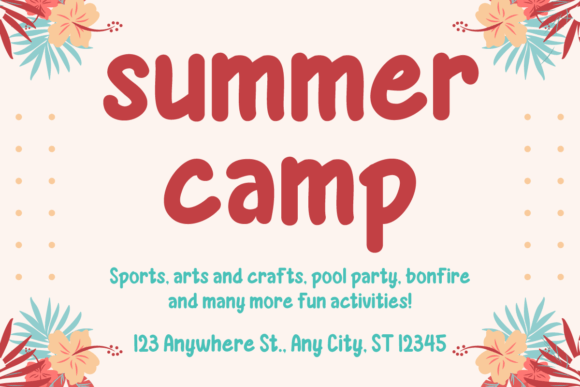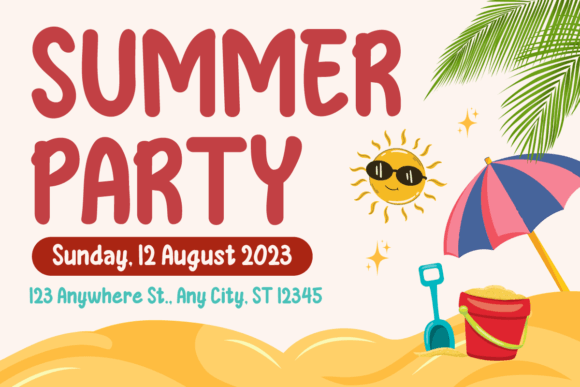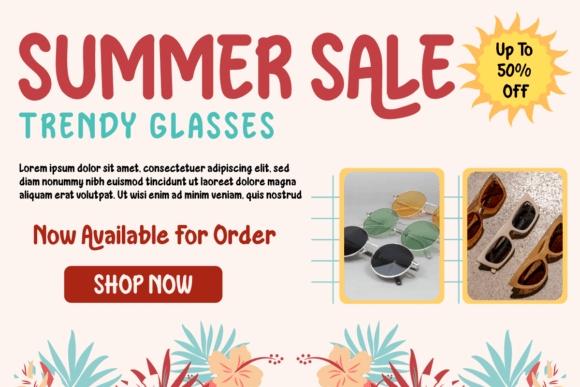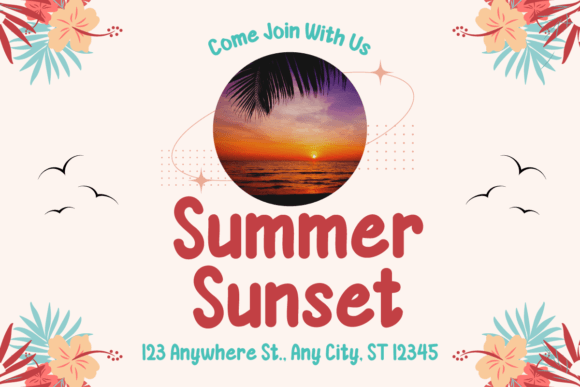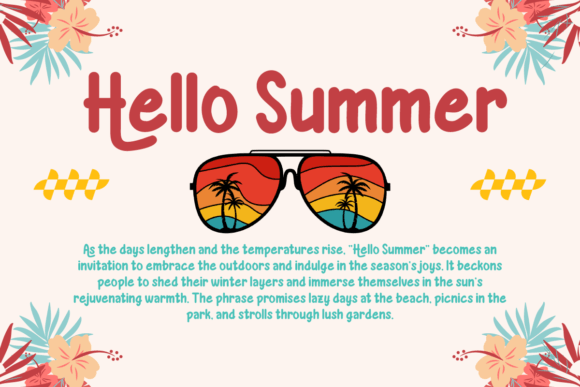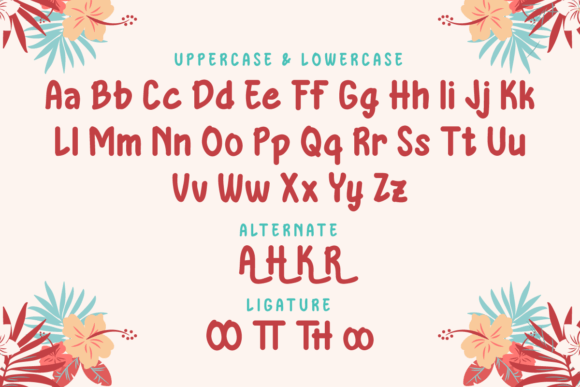
Experience the Vibrant Spirit of Summer with Hayasi Font
Summer is here, and it’s time to infuse your creative projects with the lively and carefree atmosphere of the season. Introducing Hayasi Font, a vibrant and energetic typeface that captures the essence of summer. Whether you’re designing beach party invitations, tropical-themed posters, or simply looking to add a touch of warmth to your designs, Hayasi Font is the perfect choice.
What is Hayasi Font?
Hayasi Font is a unique and stylish typeface that embodies the spirit of summer. Its bold and playful design makes it perfect for eye-catching headlines, titles, and captions. The font features a distinctive blend of modern and tropical elements, giving it a fresh and exciting feel. With its clean lines, flowing curves, and dynamic shapes, Hayasi Font is sure to add a burst of energy to your designs.
Key Features of Hayasi Font
- Vibrant and Energetic Design: Hayasi Font boasts a lively and carefree design that’s perfect for capturing the essence of summer.
- Modern and Tropical Elements: The font combines modern and tropical elements, giving it a unique and refreshing feel.
- Clean Lines and Flowing Curves: Hayasi Font features clean lines, flowing curves, and dynamic shapes that add a touch of elegance to your designs.
- Multilingual Support: The font supports multiple languages, making it a versatile choice for designers and crafters worldwide.
Perfect for Summer-Inspired Projects
Hayasi Font is the perfect choice for designers and crafters looking to add a touch of summer to their projects. Whether you’re creating:
- Beach Party Invitations: Make a splash with Hayasi Font’s bold and playful design.
- Tropical-Themed Posters: Transport your audience to a tropical paradise with Hayasi Font’s vibrant and energetic feel.
- Summer-themed Packaging: Add a touch of warmth and personality to your product packaging with Hayasi Font.
- Social Media Graphics: Make your social media graphics stand out with Hayasi Font’s fresh and exciting design.
Why Choose Hayasi Font?
With so many fonts available, why choose Hayasi Font? Here are just a few reasons:
- Unique and Exclusive Design: Hayasi Font offers a distinctive and exclusive design that’s sure to set your projects apart.
- Easily Readable: Despite its bold and playful design, Hayasi Font remains easily readable, making it perfect for body text and captions.
- High-Quality and Versatile: Hayasi Font is a high-quality font that’s versatile enough to be used in a wide range of projects and applications.
Tips for Using Hayasi Font
To get the most out of Hayasi Font, here are a few tips:
- Pair with Neutral Fonts: Pair Hayasi Font with neutral fonts to create a balanced and harmonious design.
- Experiment with Colors: Experiment with bright and bold colors to bring out the vibrant spirit of Hayasi Font.
- Use for Headlines and Titles: Use Hayasi Font for headlines and titles to add a touch of energy and excitement to your designs.
Hayasi Font is the perfect choice for designers and crafters looking to infuse their projects with the vibrant spirit of summer. With its unique and exclusive design, easily readable text, and high-quality versatility, Hayasi Font is sure to add a burst of energy to your designs. So why wait? Experience the vibrant spirit of summer with Hayasi Font today!